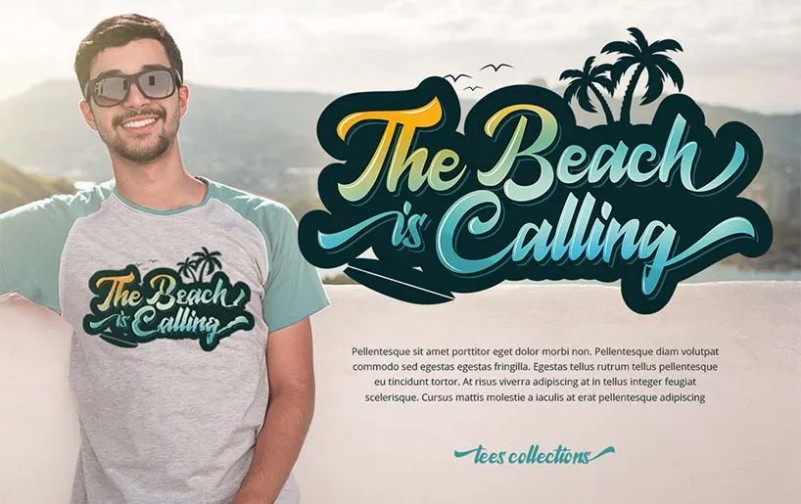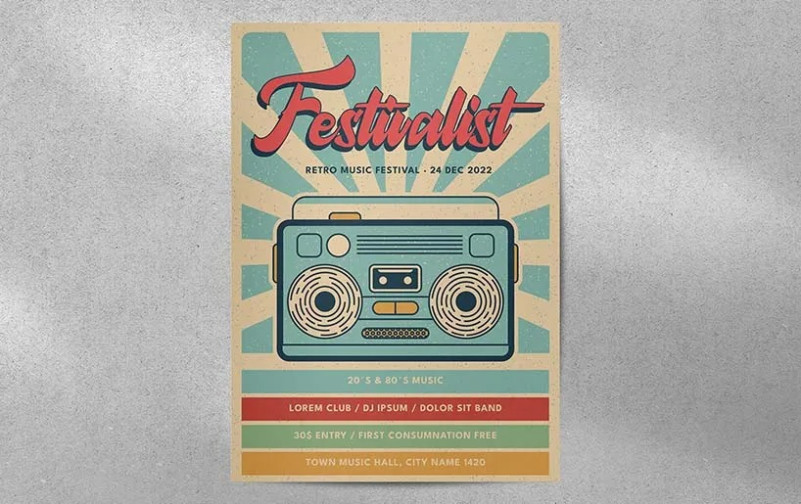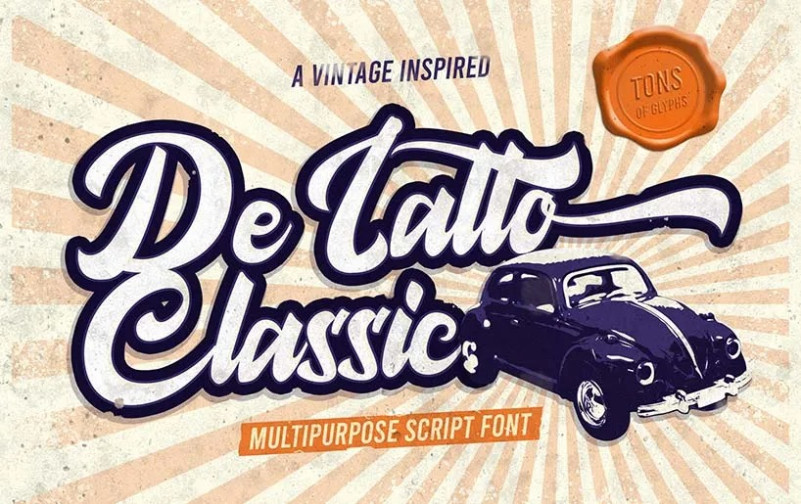
De Latto Font
De Latto Classic Script Font is a Script font with the vibe of Vintage Style. It is perfect for Vintage brand, Retro, Classic, Fashion, artist, blogging, social media, Lifestyle, Chocolate products, Coffee Products, Cake, movie poster and more.
De Latto Classic Font includes full set of gorgeous uppercase and lowercase Cyrillic and English letters, multilingual symbols, numerals, punctuation and ligatures.
There were created 71 Alternates (you can see them among preview pictures).